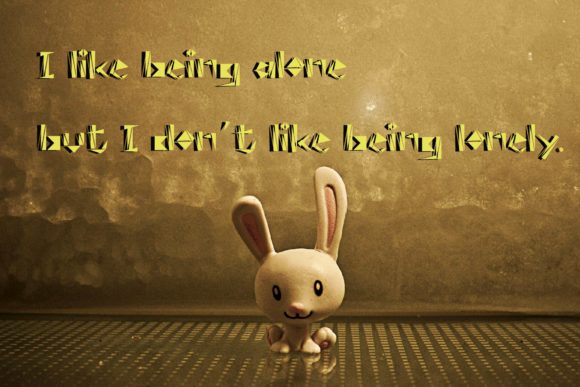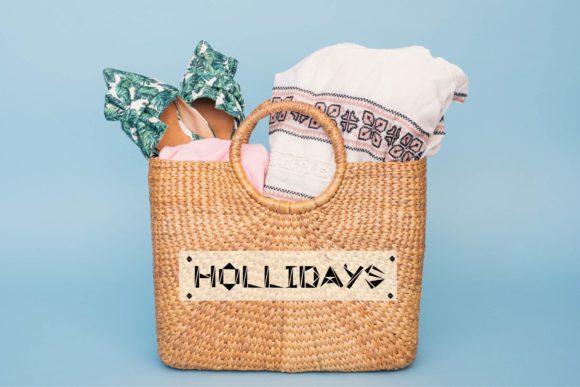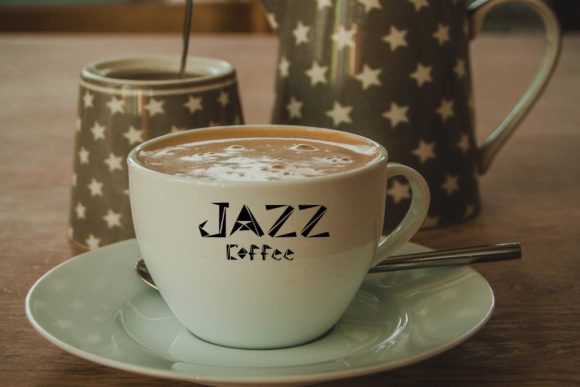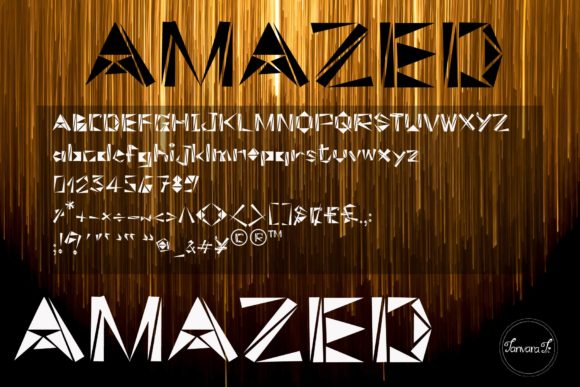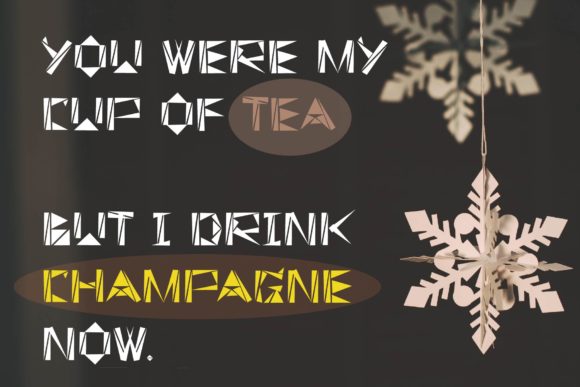
The Amazed Font: A Design Game-Changer
I’ll never forget the time I was working on a project for a client who wanted a bold, eye-catching font to match their brand’s personality. I scoured the internet for hours, trying out font after font, but nothing seemed quite right. That was until I stumbled upon the Amazed font. It’s an authentic display font that features a unique style, making it perfect for creating outstanding and original designs! ✨
So, what makes the Amazed font so special? Let’s dive into the good stuff and a few quirks I’ve discovered.
- ✨ Unique and authentic style that’s sure to turn heads
- ✅ Highly legible, even at larger font sizes
- 🎨 Versatile and can be used for a wide range of design projects, from posters to social media graphics
- 💻 Works beautifully with OpenType features and glyphs
- 🤔 May not be the best choice for body text or smaller font sizes, as it can be a bit too bold
- ⚠️ Limited availability of certain characters, such as accented letters
The Designer Inspiration Behind Amazed Font
The Amazed font was created with the goal of providing a unique and authentic display font that would help designers stand out from the crowd. Inspired by vintage typography and modern design trends, the Amazed font is the perfect blend of bold and elegant. While we can’t confirm the exact designer behind the font, it’s clear that their passion for typography and design shines through in this stunning font.
Q: What type of projects is the Amazed font best suited for?
A: The Amazed font is perfect for display purposes, such as headlines, titles, and posters. It’s not recommended for body text or smaller font sizes.
Q: Is the Amazed font available in different weights or styles?
A: Currently, the Amazed font is available in a single weight. However, you can experiment with different font sizes and styles to achieve the desired effect.